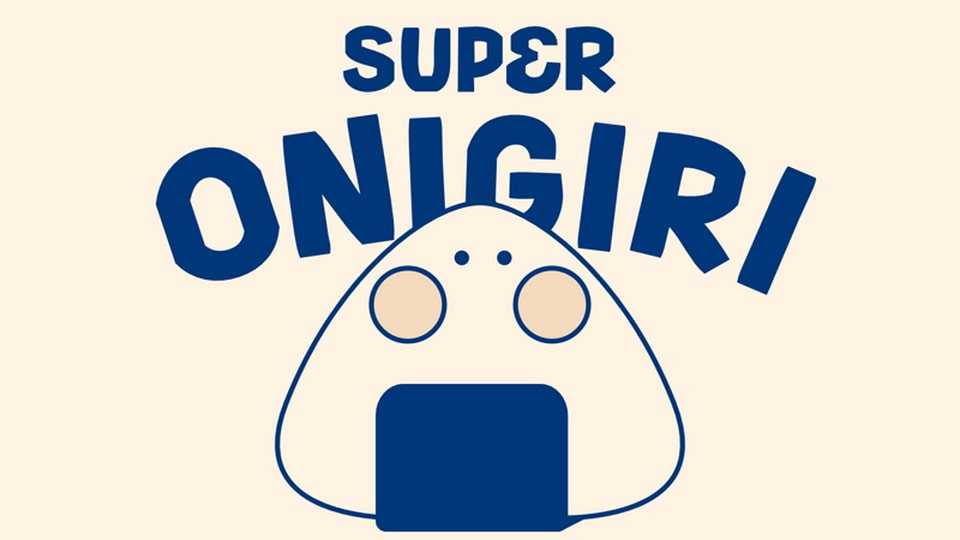
Download Super Onigiri font, a cartoon typeface that radiates boldness and joy, capturing the lively spirit of animated adventures. Super Onigiri font is custom-made for projects that demand a playful and exuberant vibe.